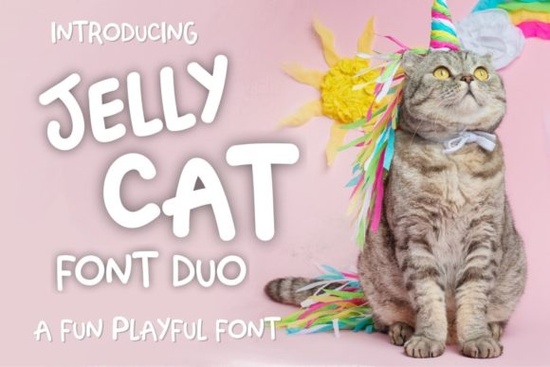
If you’ve been searching for a handwritten font that feels warm, playful, and just a little bit whimsical, Jelly Cat Font might be exactly what your next project needs. It’s the kind of typeface that doesn’t try too hard it just works. Whether you’re designing greeting cards, branding a small bakery, or personalizing a baby shower invite, this font brings a gentle charm that’s hard to replicate with more formal scripts.
Its strokes feel natural, like someone just picked up a brush pen and started writing with a smile. That’s why it fits so well in categories like Pinky Font or Amelline fonts that prioritize personality over polish. Unlike stiff, overly structured typefaces, Jelly Cat invites creativity without demanding perfection.
What kinds of projects does Jelly Cat Font work best for?
You’ll find this font shines when used in designs that call for a human touch. Think:
- Kids’ products birthday party invites, growth charts, nursery wall art
- Handmade brands soap labels, candle packaging, boutique stickers
- Social media graphics quotes, announcements, seasonal promos with soft vibes
- Print-on-demand items mugs, tote bags, T-shirts with cozy, casual messaging
It also pairs surprisingly well with cleaner sans-serifs if you need contrast imagine pairing it with something like Limon Mint for a modern-yet-playful combo. The key is not to overcrowd it; let Jelly Cat breathe. Use it for headlines, short phrases, or decorative accents rather than long paragraphs.
How does it compare to other friendly script fonts?
If you’ve used Mighty Sunday before, you know that vibe relaxed, bouncy, full of character. Jelly Cat sits in that same neighborhood but leans even softer, with slightly rounder terminals and a more “just-doodled-this” rhythm. It doesn’t shout; it whispers sweetly.
Compared to something like Nagita, which has sharper swashes and more dramatic flair, Jelly Cat keeps things grounded. No fancy ligatures or exaggerated loops here just honest, approachable lettering that feels like it was made by hand, because it was.
That authenticity matters, especially if you’re selling to customers who value handmade aesthetics or emotional connection. In a world where everything can feel mass-produced, fonts like this help your work stand out not because they’re flashy, but because they feel real.
Is Jelly Cat Font easy to use for beginners?
Absolutely. You don’t need advanced design skills to make it look good. Open your favorite design app Canva, Photoshop, Affinity, whatever you’re comfortable with install the font, and start typing. The letters connect naturally, and there’s enough variation in stroke weight to keep things interesting without being distracting.
One tip: avoid using all caps. This font thrives in lowercase or title case. Also, give it some generous leading (line spacing) if you’re stacking lines those rounded ascenders and descenders need room to play.
Quick checklist before you start:
- Use sparingly short phrases work better than paragraphs
- Pair with a simple sans-serif for balance
- Avoid tight spacing let those curves have room
- Stick to lowercase or title case for best results
Fonts like Jelly Cat remind us that design doesn’t always need to be bold or complex to be effective. Sometimes, the quiet ones the ones that feel like a hug are the ones people remember most. If your project needs that kind of gentle energy, this might be your new go-to.